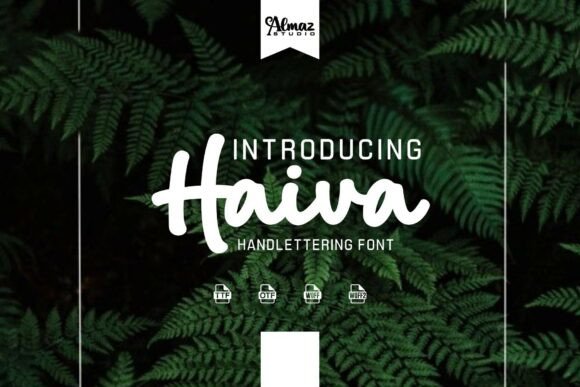
Discover the Elegance of Haiva Font: A Modern Hand-Lettering Marvel
In the world of typography, few fonts manage to strike a balance between elegance and casual charm. Haiva Font is one such marvel that has captured the hearts of designers and crafters alike. This modern hand-lettering font seamlessly blends natural elegance with a casual, organic feel, making it a perfect addition to any creative project.
The Unique Charm of Haiva
Haiva’s design is characterized by smooth, flowing strokes and slightly imperfect curves, which give it an authentic handwritten look. The font’s natural elegance is palpable, yet its casual feel makes it approachable and relatable. This unique blend of characteristics makes Haiva an excellent choice for projects that require a warm and personal touch.
One of the standout features of Haiva is its balanced letterforms, which create a harmonious rhythm. This balance makes it suitable for both short phrases and longer text compositions, allowing designers to use it in a variety of contexts. Whether you’re working on branding, logos, social media graphics, packaging, invitations, or other creative projects, Haiva is an excellent choice.
Inspiration from Nature and Handcrafted Artistry
The design of Haiva is inspired by nature and handcrafted artistry, which is evident in its organic feel and smooth strokes. The font’s creator aimed to capture the essence of handmade typography, while maintaining excellent readability. The result is a font that feels fresh, contemporary, and stylish, yet approachable and down-to-earth.
Haiva Font is a perfect fit for designers and crafters who are looking for a font that can add a personal touch to their projects. Its unique blend of elegance and casual charm makes it suitable for a wide range of applications, from branding and advertising to packaging and invitations.
Designers can use Haiva to create stunning visual compositions that are both aesthetically pleasing and easy to read. The font’s versatility and compatibility make it easy to use in different design software, while its stylish character ensures that it will stand out in any project.
Why Choose Haiva Font?
There are several reasons why Haiva Font stands out from the crowd:
- Unique blend of elegance and casual charm: Haiva’s design is both elegant and approachable, making it suitable for a wide range of projects.
- Excellent readability: Despite its handwritten look, Haiva is easy to read, making it perfect for longer text compositions.
- Inspired by nature and handcrafted artistry: Haiva’s design is inspired by the natural world, giving it a fresh and contemporary aesthetic.
Haiva Font is a modern hand-lettering marvel that is sure to captivate designers and crafters alike. Its unique blend of natural elegance and casual charm makes it a perfect addition to any creative project. With its versatility, compatibility, and stylish character, Haiva is an excellent choice for anyone looking to add a personal touch to their designs. Whether you’re working on branding, packaging, or social media graphics, Haiva Font is sure to impress.